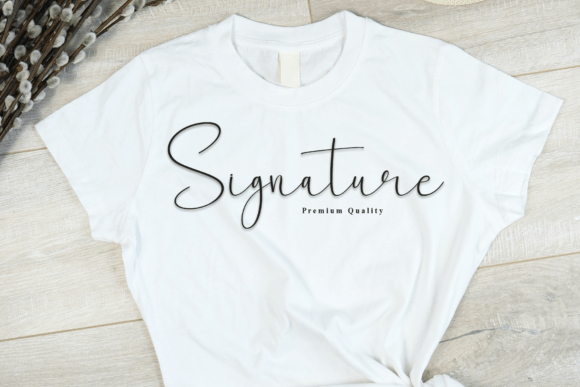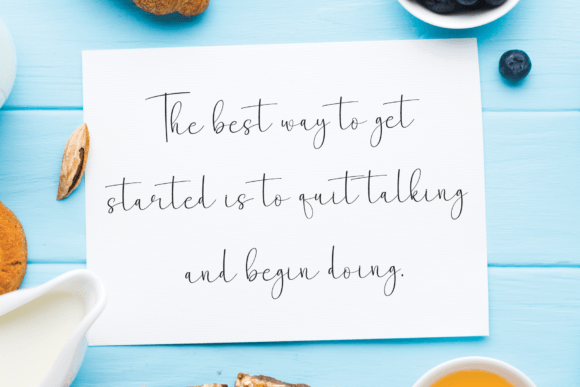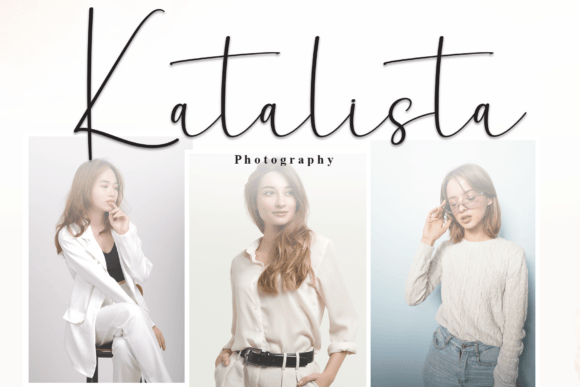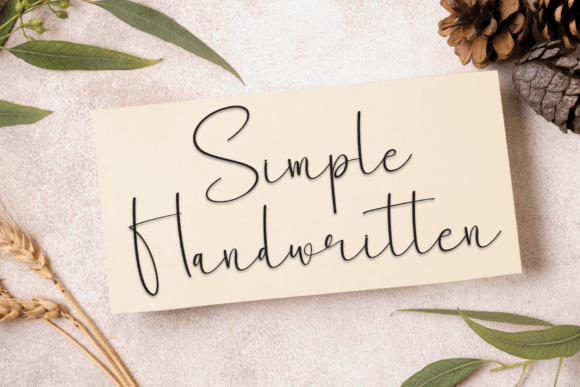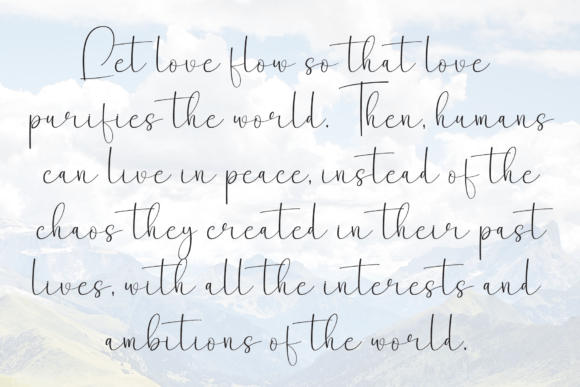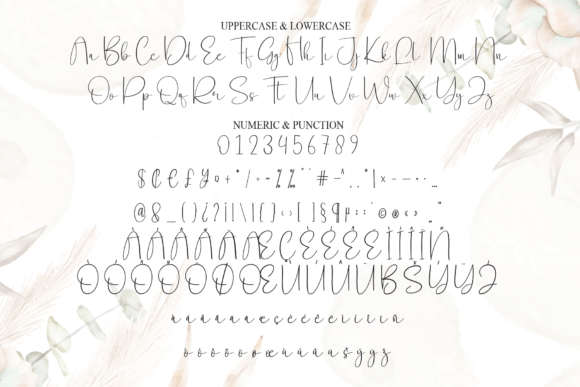
The Perfect Touch of Whimsy: Beautiful Rustic Font
As a designer, there’s nothing quite like the feeling of stumbling upon the perfect font to elevate your project. For me, it was the moment I discovered the Beautiful Rustic Font. I was working on a campaign for a rustic bed and breakfast, and I needed a font that would capture the cozy, countryside vibe of the setting. As I browsed through font options, I landed on Beautiful Rustic, and I knew I had found the one.
Beautiful Rustic Font is a handwritten font that exudes warmth and natural charm. Its soft, flowing letters are perfect for adding a personal touch to any design, whether it’s a branding project, a website, or a social media post. This font is a treasure trove for designers looking to add a rustic, homespun feel to their work.
Beautiful Rustic Font Key Features
- Unique Characteristics: Distinctive, hand-crafted design elements, including subtle texture and imperfections, giving it a genuine, rustic feel.
Designer Review: Beautiful Rustic Font
Overall, I think the Beautiful Rustic Font is a great choice for designers who want to add a touch of warmth and personality to their projects. Here’s what I like about it:
- ✨ The unique, hand-drawn feel of the font adds a lot of character to any design.
- ✨ The font is highly customizable, with a range of weights and styles to choose from.
- ✨ The font is highly legible, even at small sizes.
However, there are a few limitations to be aware of:
- ⚠️ The font may not be suitable for formal or corporate designs, as it has a more casual, rustic feel.
- ⚠️ Some of the characters may not render correctly in certain fonts or font sizes.
- ⚠️ The font may require some additional styling or formatting to get the look just right.
Overall, I think the Beautiful Rustic Font is a great choice for designers who want to add some personality to their projects. It’s versatile, customizable, and highly legible, but it may not be suitable for every type of design.
The Beautiful Rustic Font is perfect for:
- Home decor and furniture labels
- Outdoor and nature-themed designs
- Vintage and distressed designs